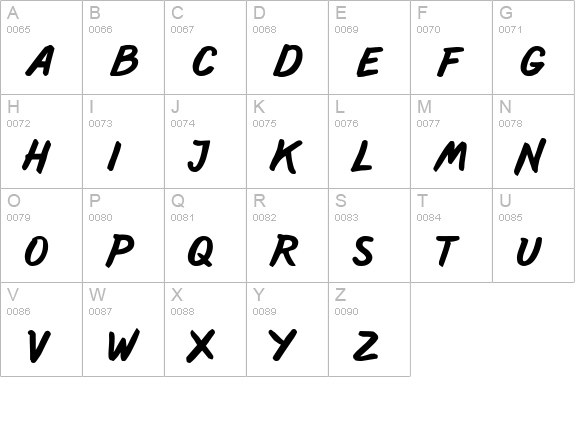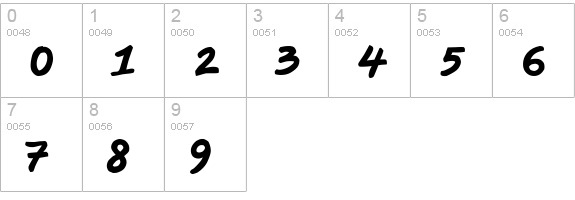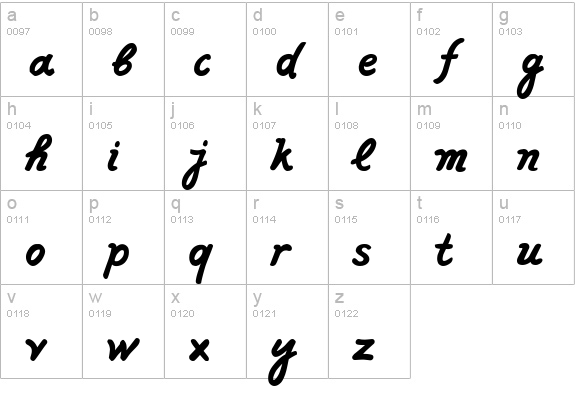
PFFreeScript Bold Font Details
PFFreeScript Bold is a strong, high-contrast variant in the PFFreeScript typeface family \xE2\x80\x94 well suited to headlines, attention-grabbing titles, and strong calls-to-action.
PFFreeScript Bold is a stunning and expressive handwritten font that exudes elegance and charm. Its bold strokes and flowing curves make it perfect for adding a touch of sophistication to any design project. Whether used for branding, invitations, or headlines, this versatile font will surely make a statement. The best part? PFFreeScript Bold is available for free download at FontsMarket.com, making it accessible to everyone looking to elevate their designs with a touch of creativity and style. Don't miss out on this beautiful and freely available font!